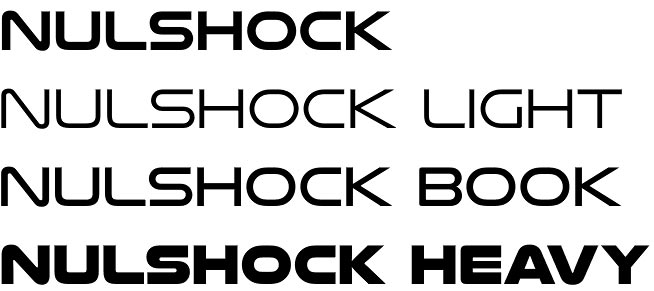
Nulshock font
Nulshock font family is a wide ultra modern typeface. Its original style combined with a range of 7 weights make it excellent choice for strong headlines, labels, logos, branding, etc. though it leaves enough room for creativity if you want to use it for ultra modern techno music poster.
Nulshock is designed with smooth precise curves visually tuned up to stand out in different environment – from industrial use to offset printing and regular screen use as web font. Designed with capitals only, Nulshock will break all limits in legibility even in small sizes and even used in unfavorable conditions.
Nulshock is designed in 2014 by Typodermic type foundry. Enjoy more of their awesome fonts here: Steelfish font, Snasm font, Uniwars font, etc.